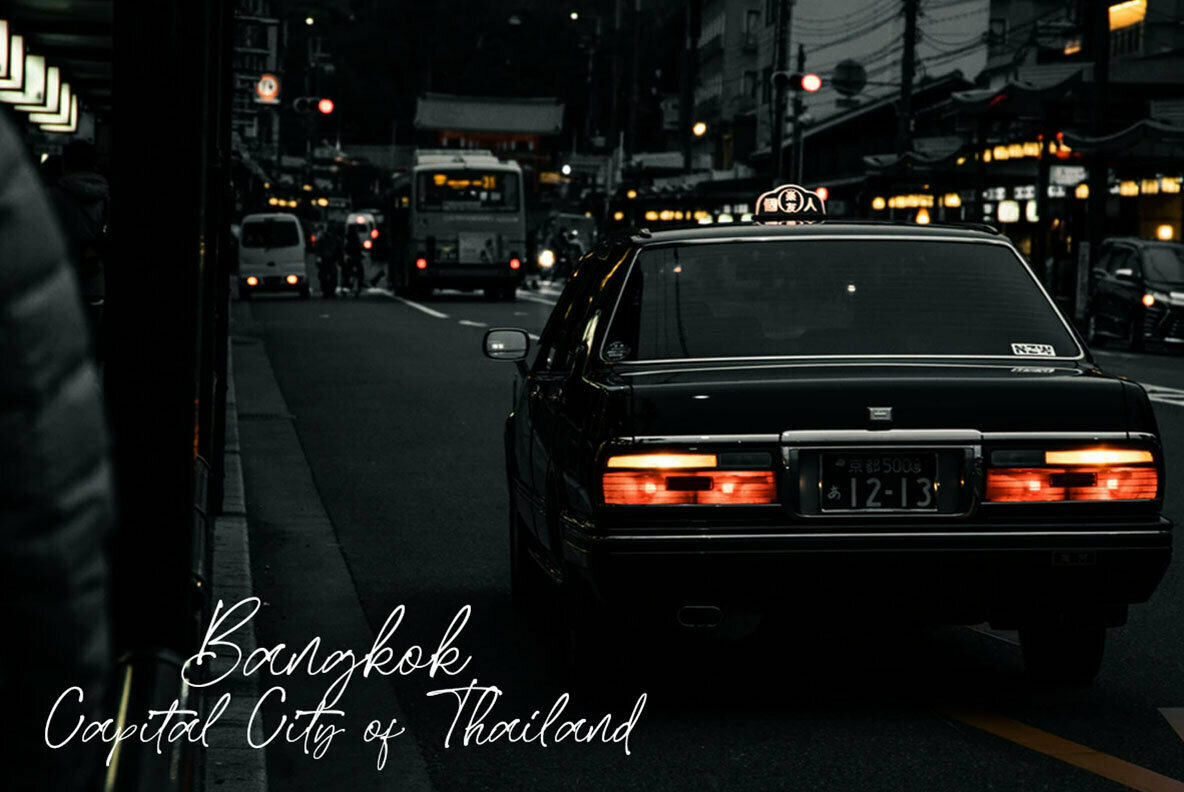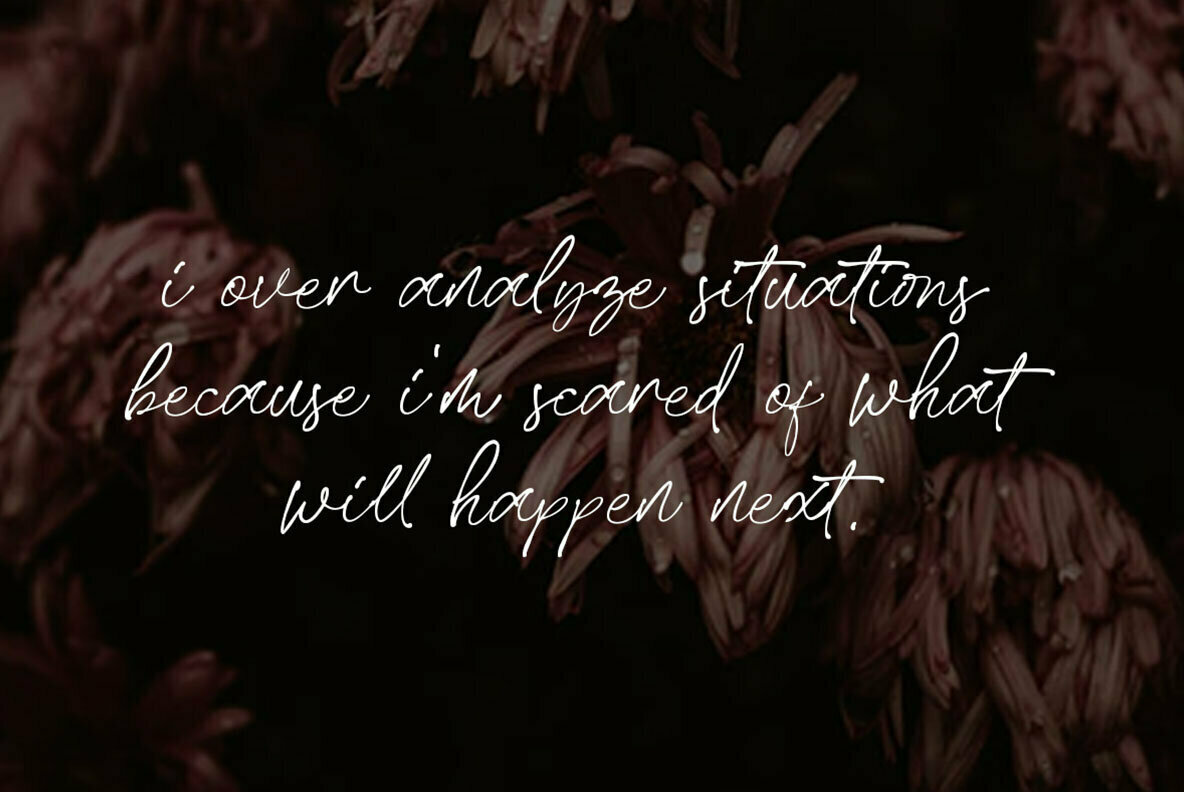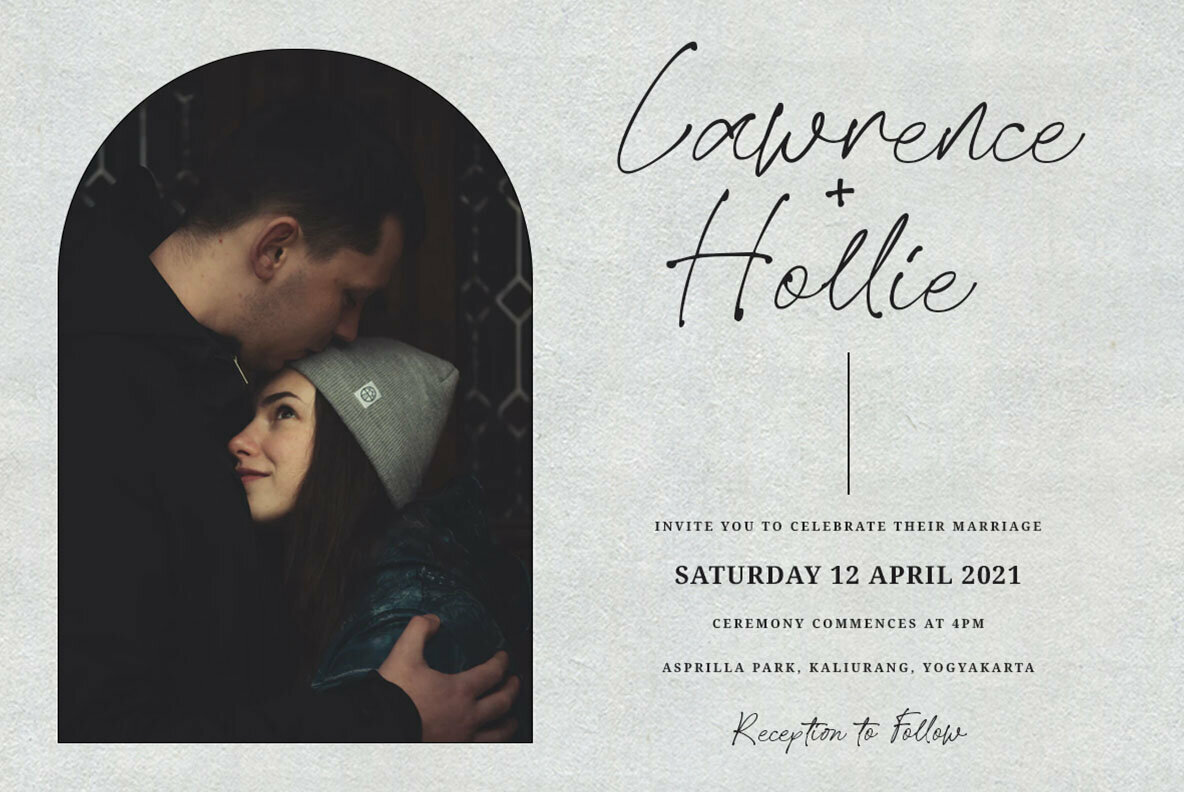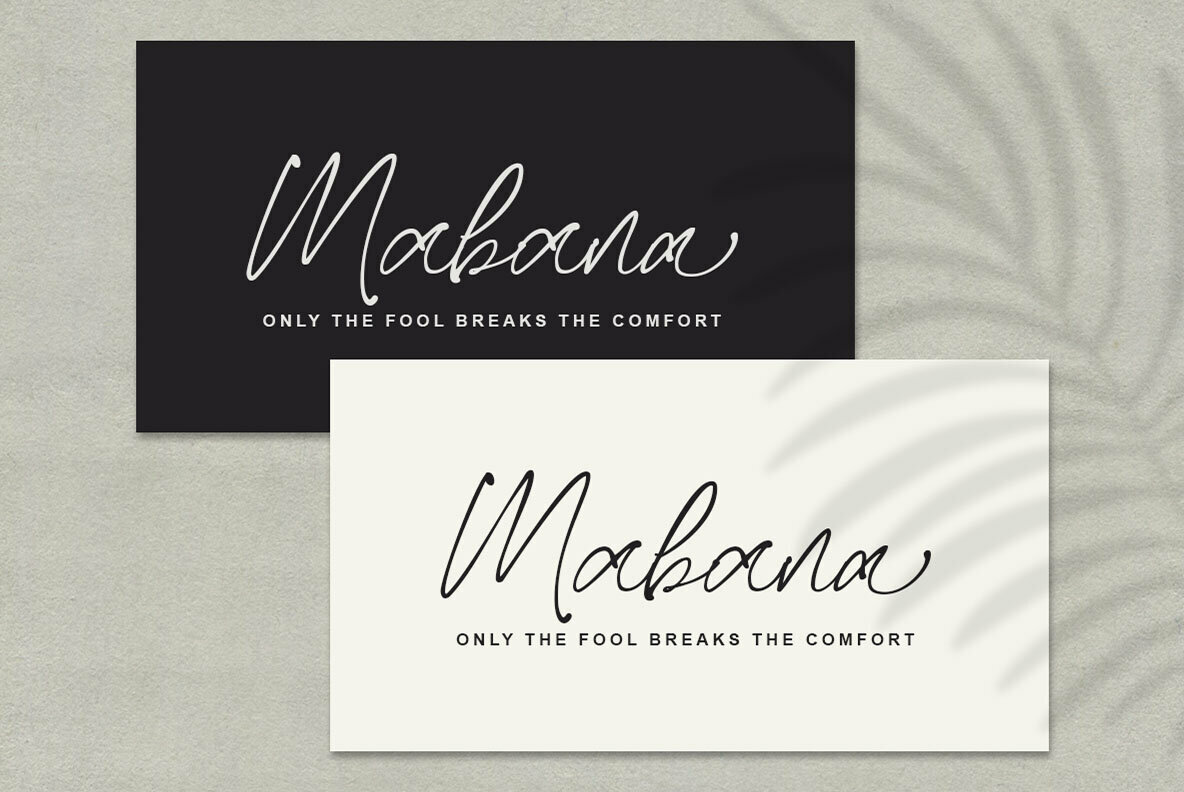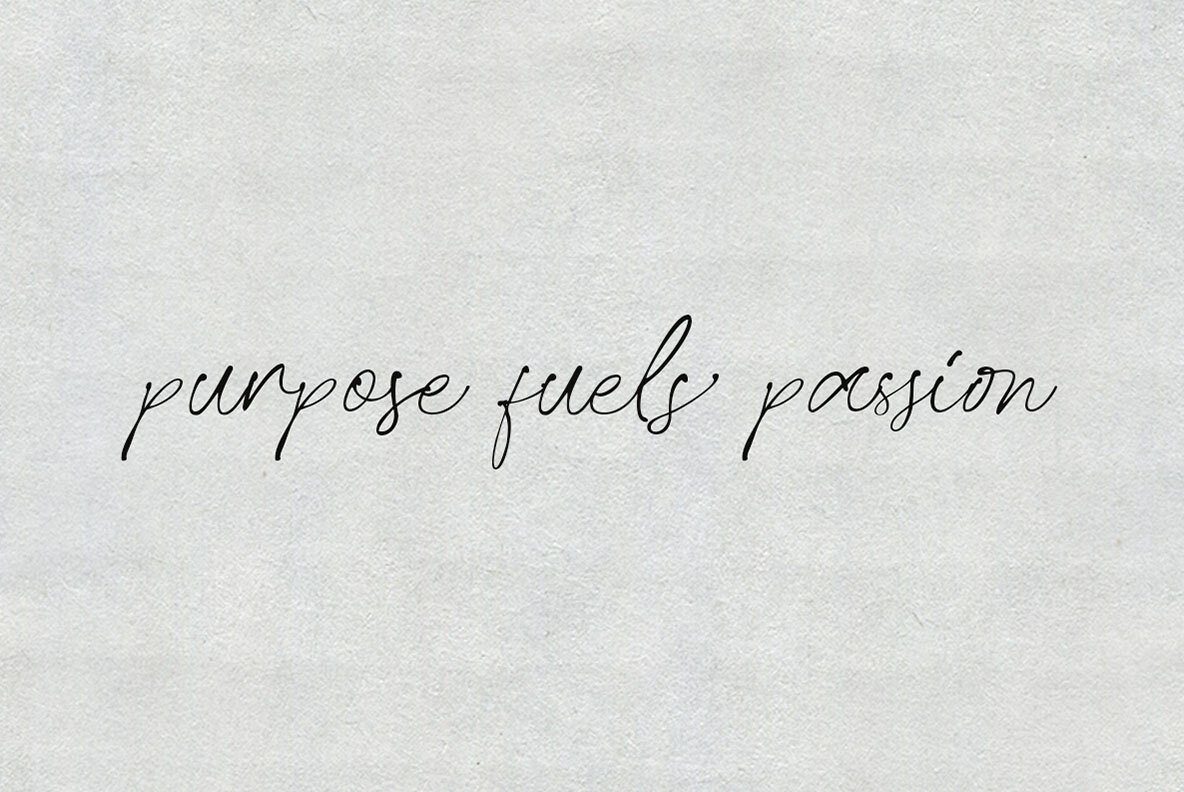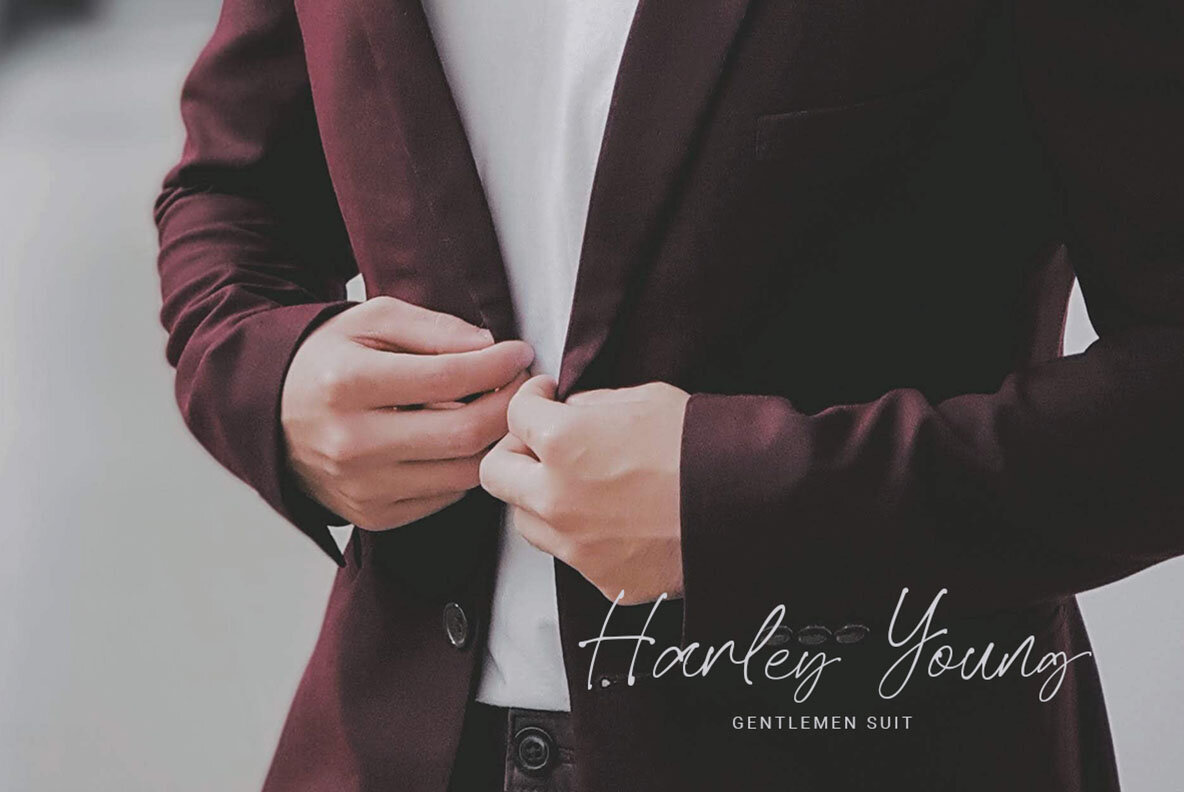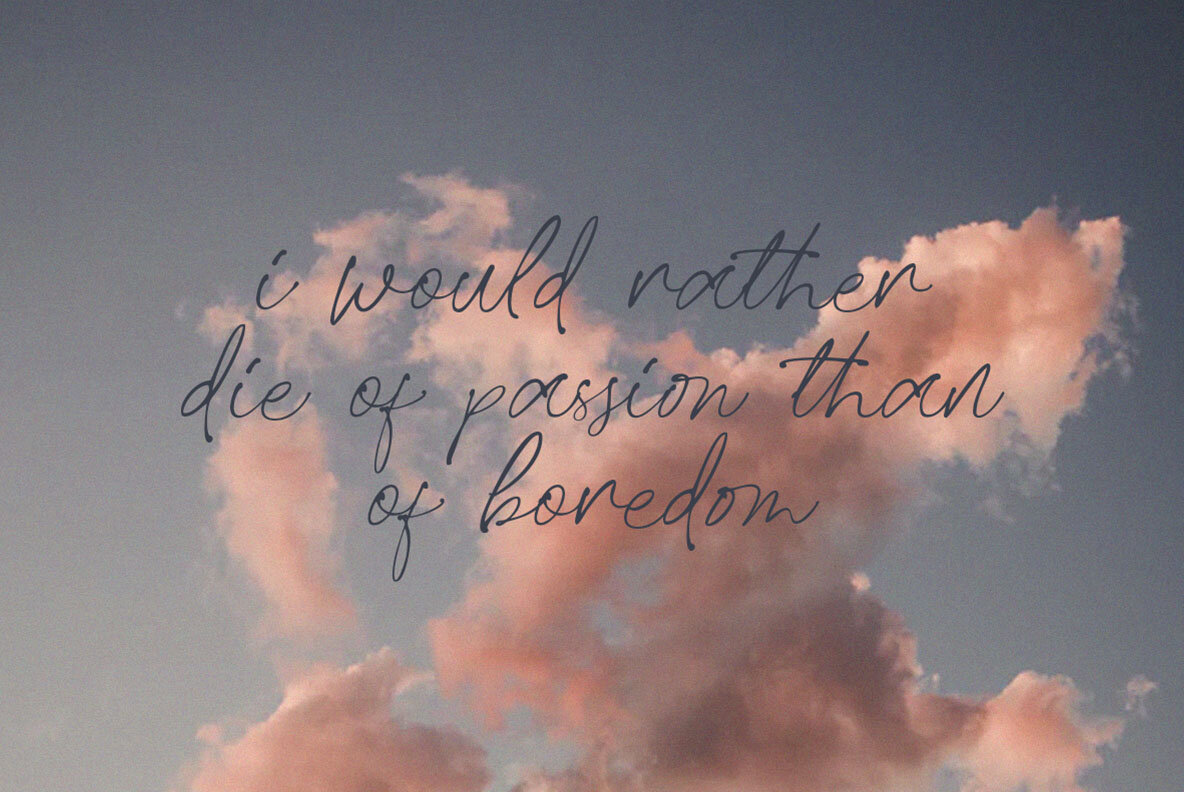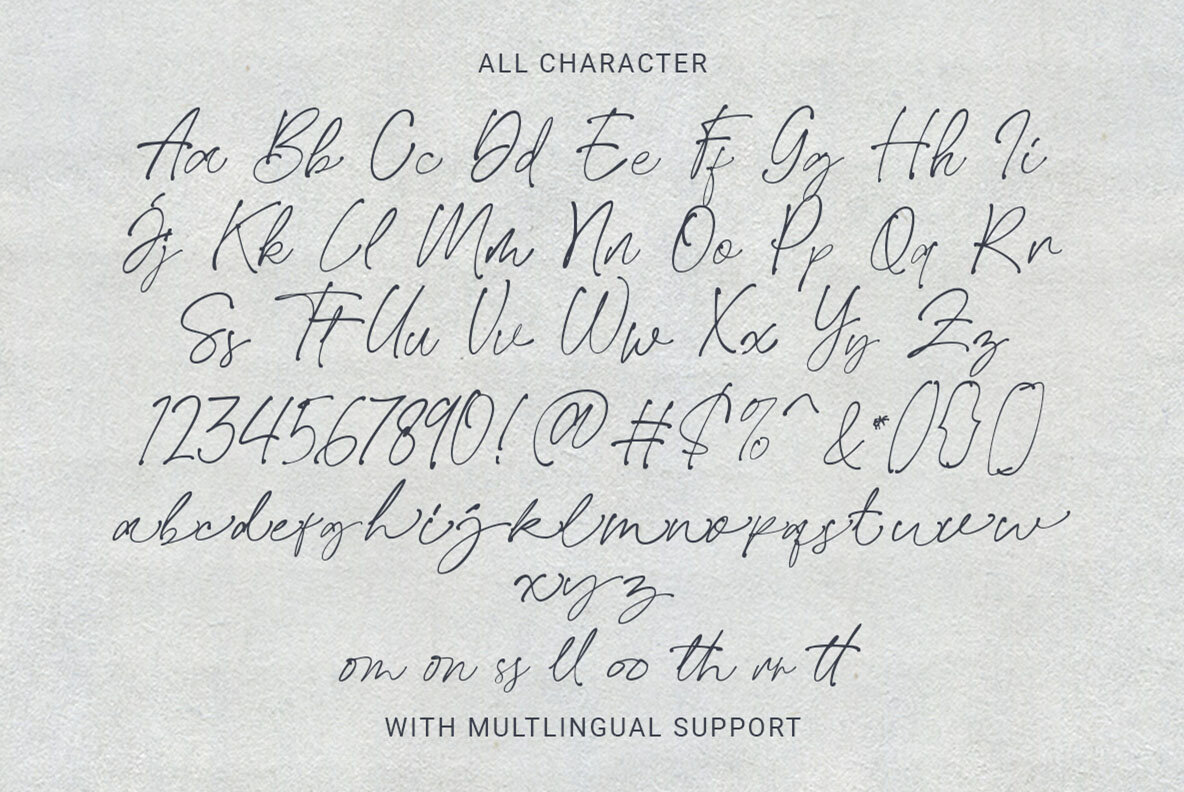
Easthallow Font
Easthallow Regular
Easthallow offers a delicate balance of natural elegance and subtlety, making it an ideal choice for projects requiring a personal and graceful touch. Its design is well-suited for signature logos, wedding invitations, and branding endeavors.Easthallow: An Artful Typeface with a Feminine Touch